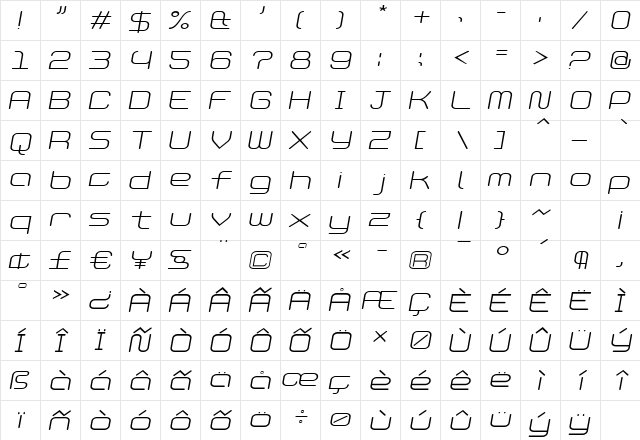
PhantomLight Italic Regular
Design Context for PhantomLight Italic Typeface
PhantomLight Italic is a composed and adaptable typeface that performs quietly and consistently across a wide range of design contexts. The slanted form adds forward momentum and visual energy. The delicate stroke weight brings airiness and refinement to layouts.